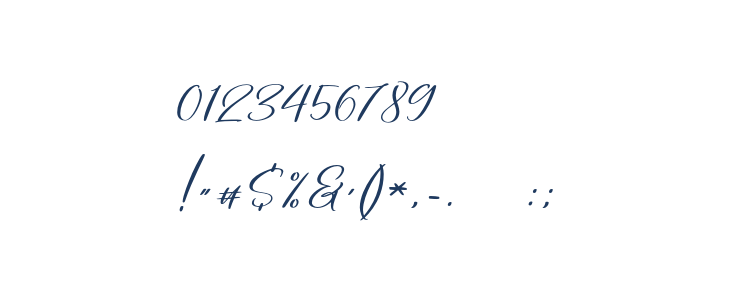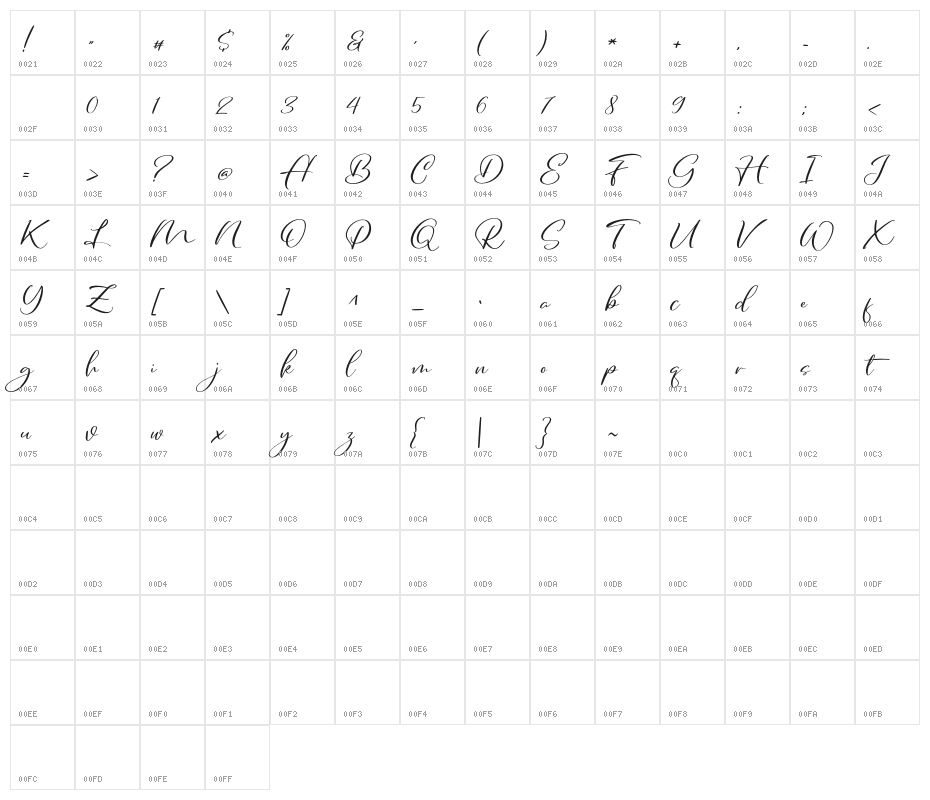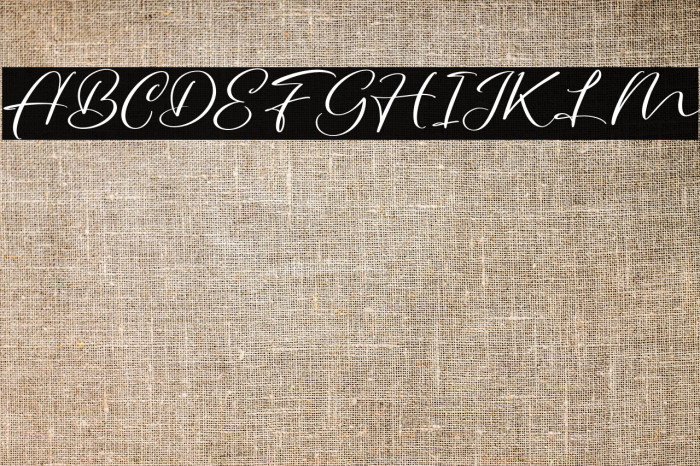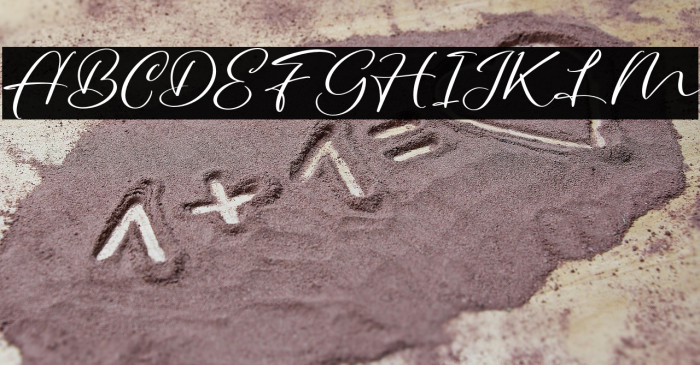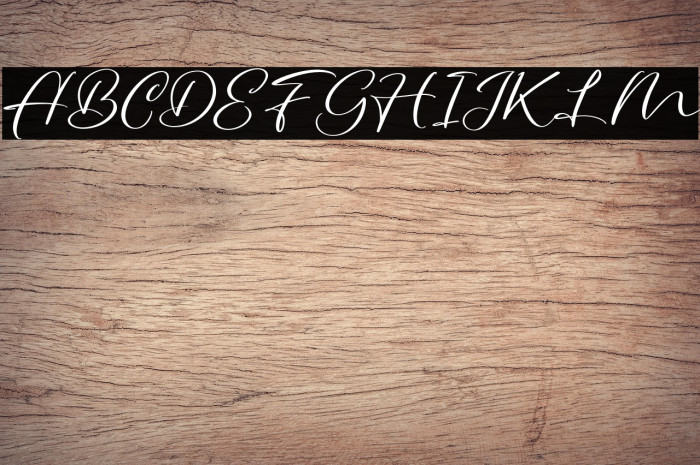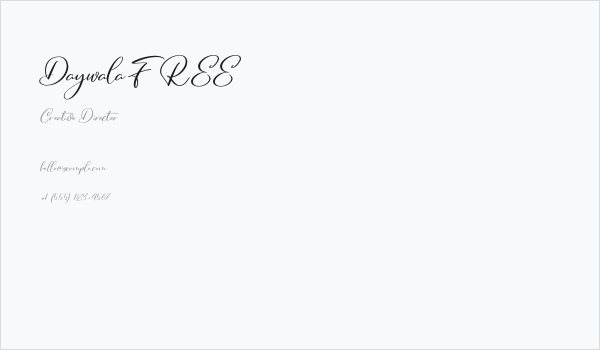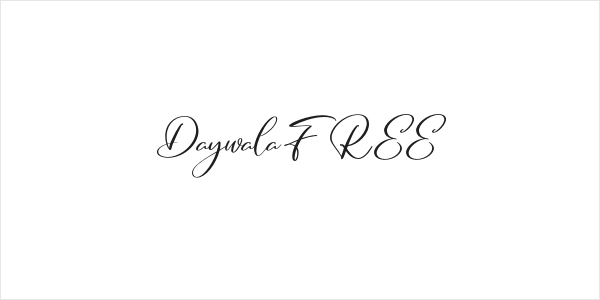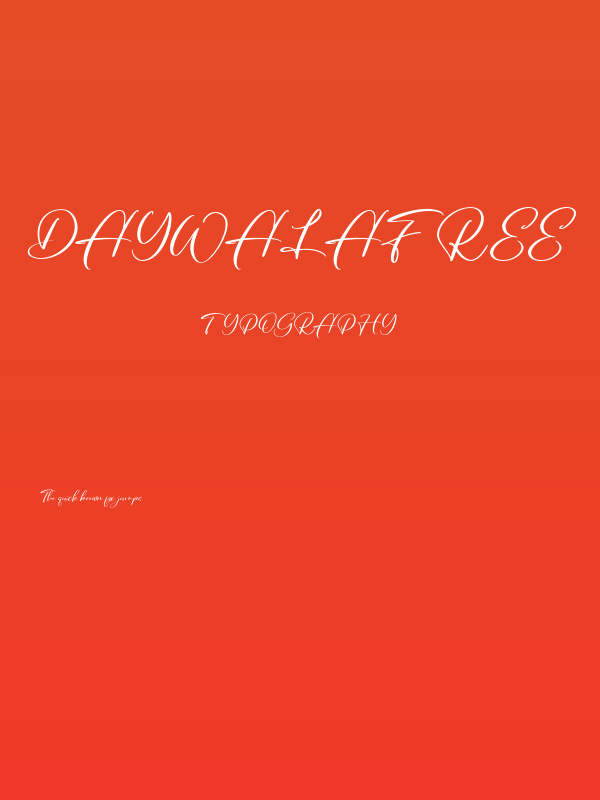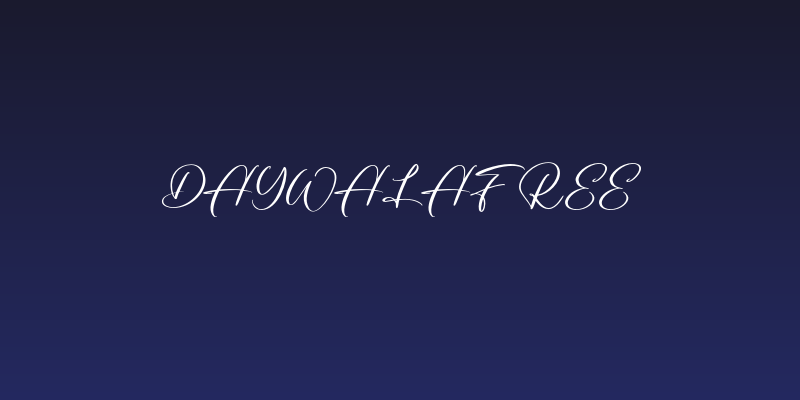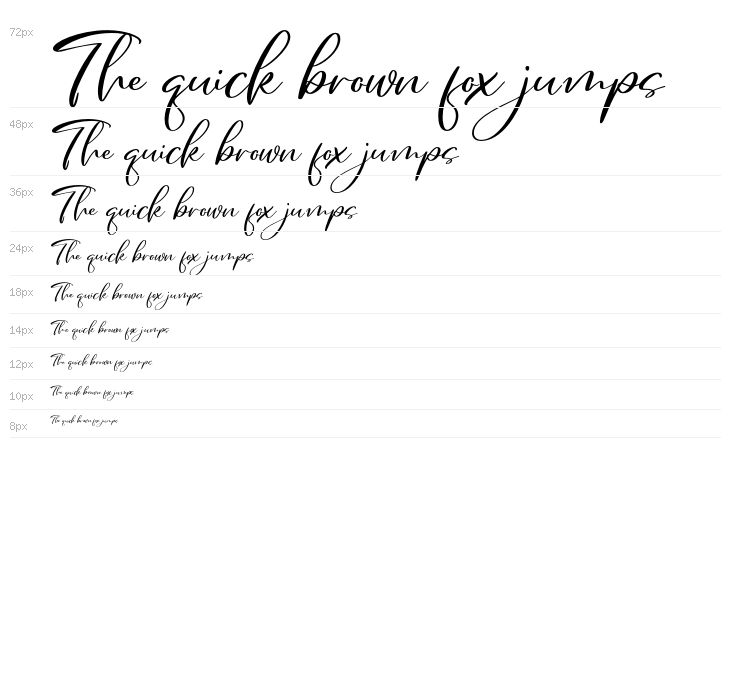
DaywalaFREE Font
DaywalaFREE Description
This font features an elegant, flowing script style that exudes sophistication and charm. The uppercase letters are gracefully elongated with sweeping curves, while the lowercase letters maintain a fluid and connected appearance, reminiscent of traditional calligraphy. The numerals are stylishly designed to complement the overall aesthetic, and the special characters add a touch of flair. This font's delicate strokes and intricate details make it ideal for projects that require a touch of elegance and refinement.
| Overall Style | Elegant, Calligraphic |
| Use Case | Headlines, Invitations, Branding |
| Proposed Projects | Ideal for wedding invitations, elegant branding, personal stationery, and upscale packaging. |